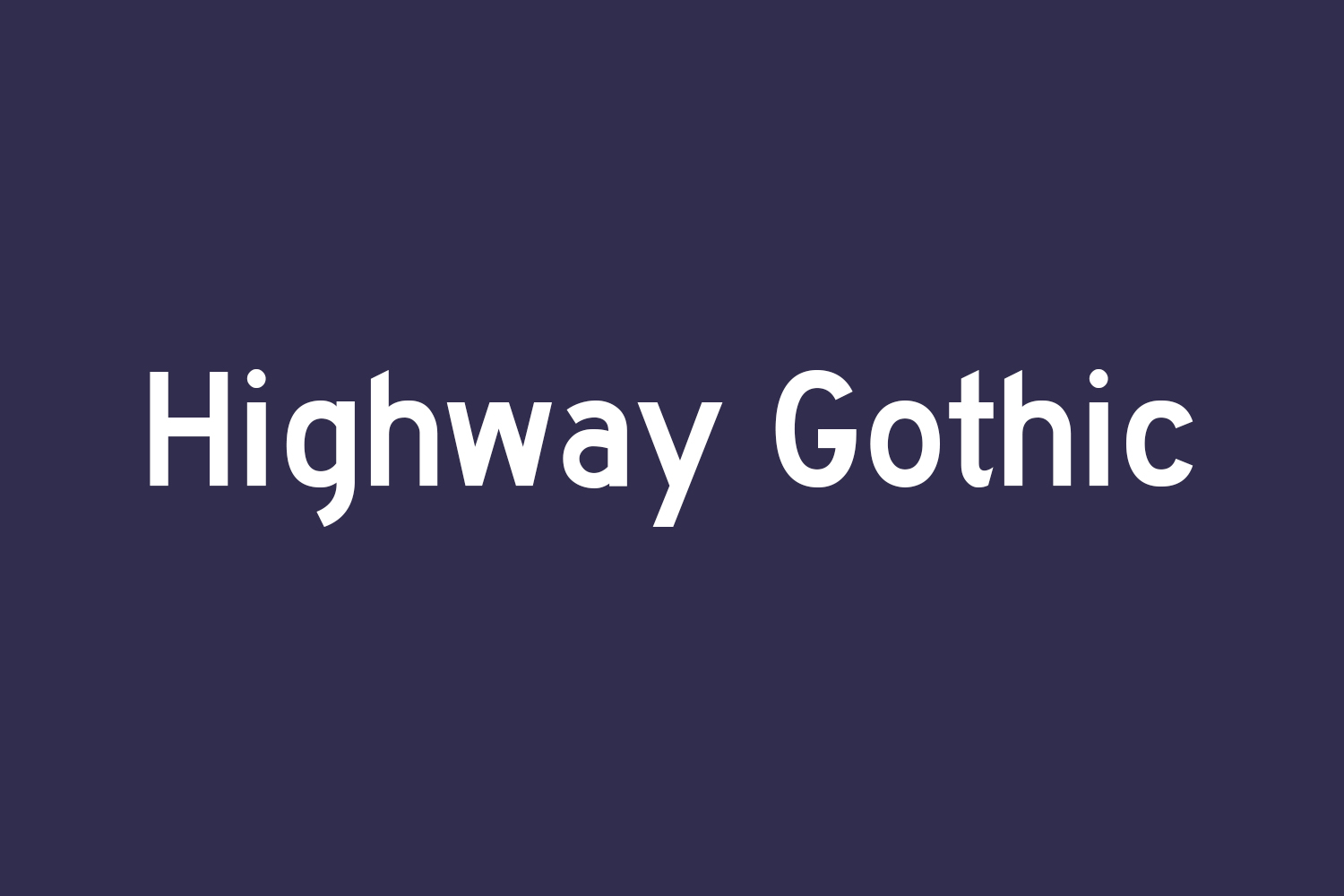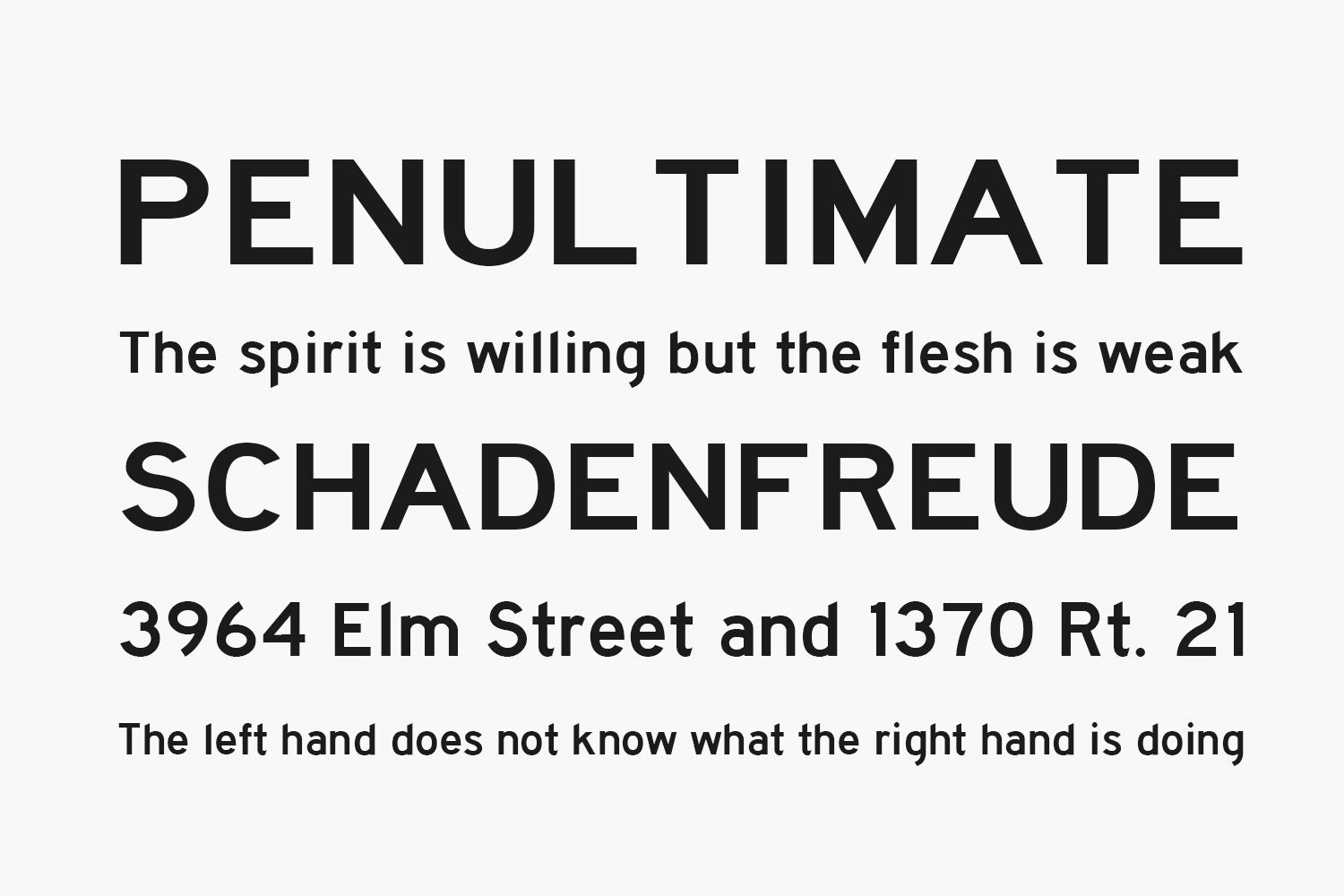
Highway Gothic is a bold and structured sans-serif display font designed by Ash Pikachu Font to bring strong visual impact and modern clarity to your creative projects. With its thick lines, clean geometry, and high legibility, this free decorative typeface works perfectly for crafting powerful logos, magazine headers, digital interfaces, brand kits, and more. Available in TTF format — ideal for designers seeking a professional, readable font that enhances legibility without overpowering your layout.
Why Choose Highway Gothic?
- Bold Industrial Style: Combines sharp edges with thick strokes for a confident, professional appearance perfect for urban visuals.
- Ideal for Outdoor Design: Perfect for signage, posters, billboards, or branding needing visibility from a distance.
Where to Use Highway Gothic?
Highway Gothic shines across a variety of design applications:
- Logos & Brand Identity: Adds strength to brand identities for streetwear labels, lifestyle blogs, or action studios needing a loud tone.
- Poster & Billboard Design: Designed for maximum visibility — makes headlines pop in outdoor advertising and event banners.
- Digital Interfaces: Ideal for web headers, landing page buttons, or mobile app text where clear communication is essential.
- Social Media Graphics: Creates bold text overlays for Instagram Stories, TikTok videos, or YouTube thumbnails with an edgy vibe.
- Packaging Design: Enhances product tags on novelty items, beverage cans, or streetwear labels requiring an industrial look.
Design Tips with Highway Gothic
- Glyphs: Uppercase (A-Z), lowercase (a-z), numerals, punctuation, basic Latin characters.